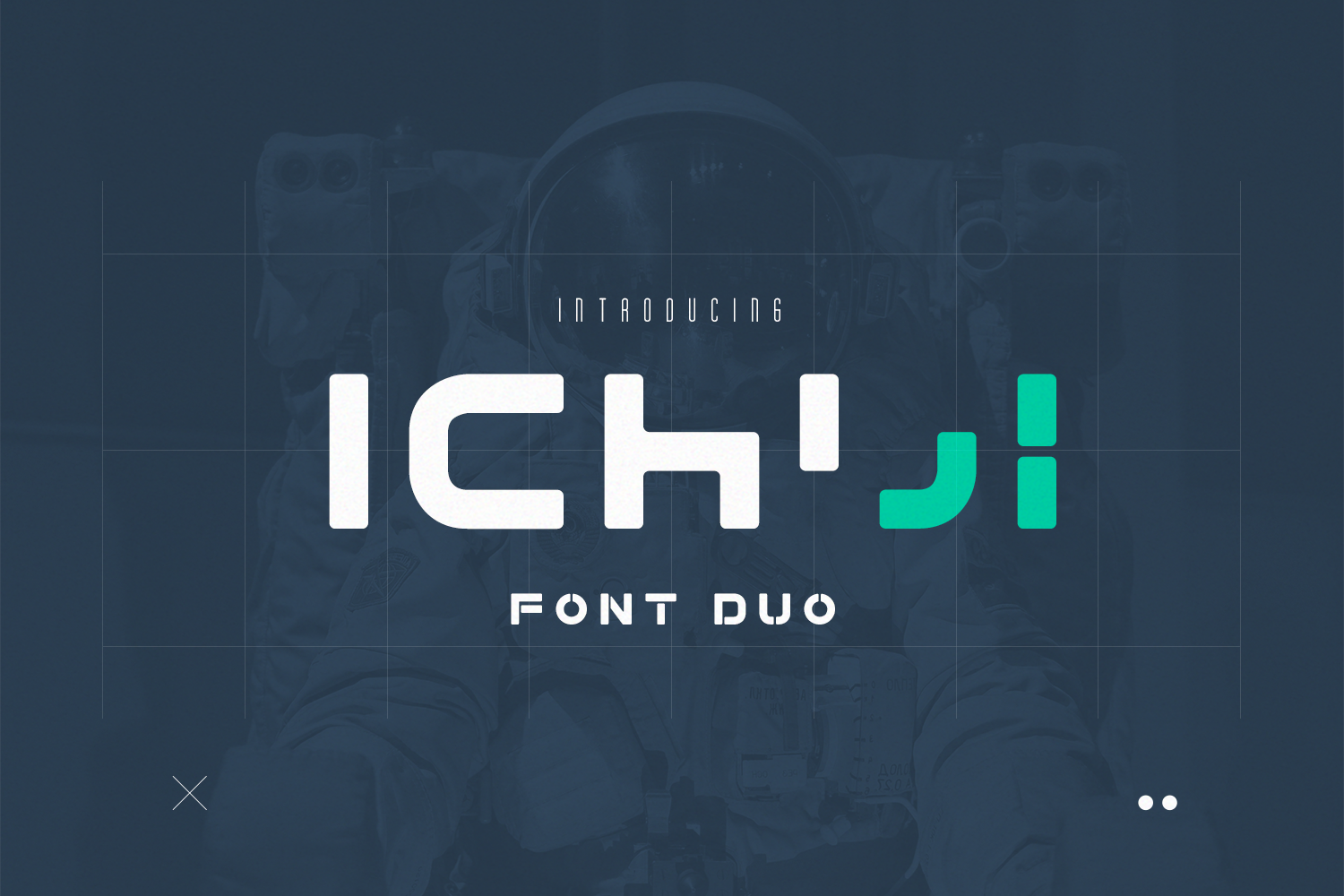
Ichiji – A Strong Modern Font Duo
Ichiji — A Strong & Futuristic Modern Font Duo
Launch your next project into the future with Ichiji, a clean and powerful font duo designed for structural clarity and modern impact. Inspired by architectural minimalism and space-age aesthetics, Ichiji offers a bold, confident voice that brings a sense of intentional design to any creative canvas.
We believe that even the most technical designs deserve a bit of heart. Ichiji is more than just a typeface; it’s a dependable system for creators who want their work to feel cutting-edge yet approachable. Whether you are crafting high-performance branding, tech-focused posters, or minimalist streetwear, this duo provides the refined strength and sophisticated simplicity your vision deserves.
Perfectly Paired Duo: Two harmonious styles designed to complement each other for effortless typography.
Bold & Clean Aesthetic: Strong geometric forms with refined, modern lines.
Pro Character Set: Includes Uppercase Latin, Numerals, and Essential Punctuation.
Branding & Logo Design: Create a lasting, "future-ready" professional impression.
Tech & Gaming: Ideal for app interfaces, dashboards, and futuristic gaming assets.
Apparel & Streetwear: Bold, stenciled-inspired forms that look great on print.
Editorial & Marketing: High-impact headlines, blog headers, and modern social media kits.